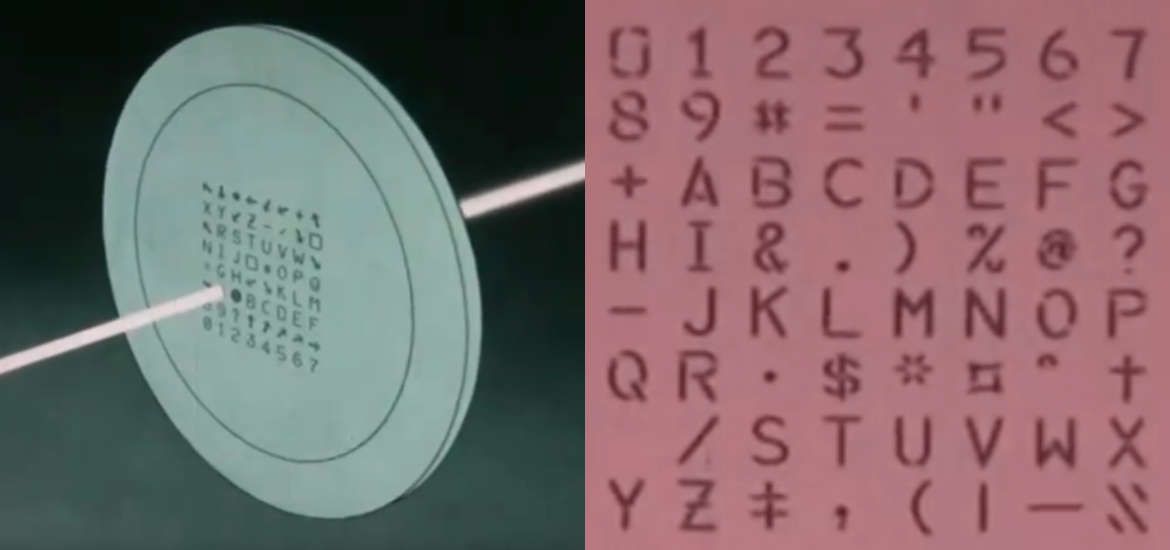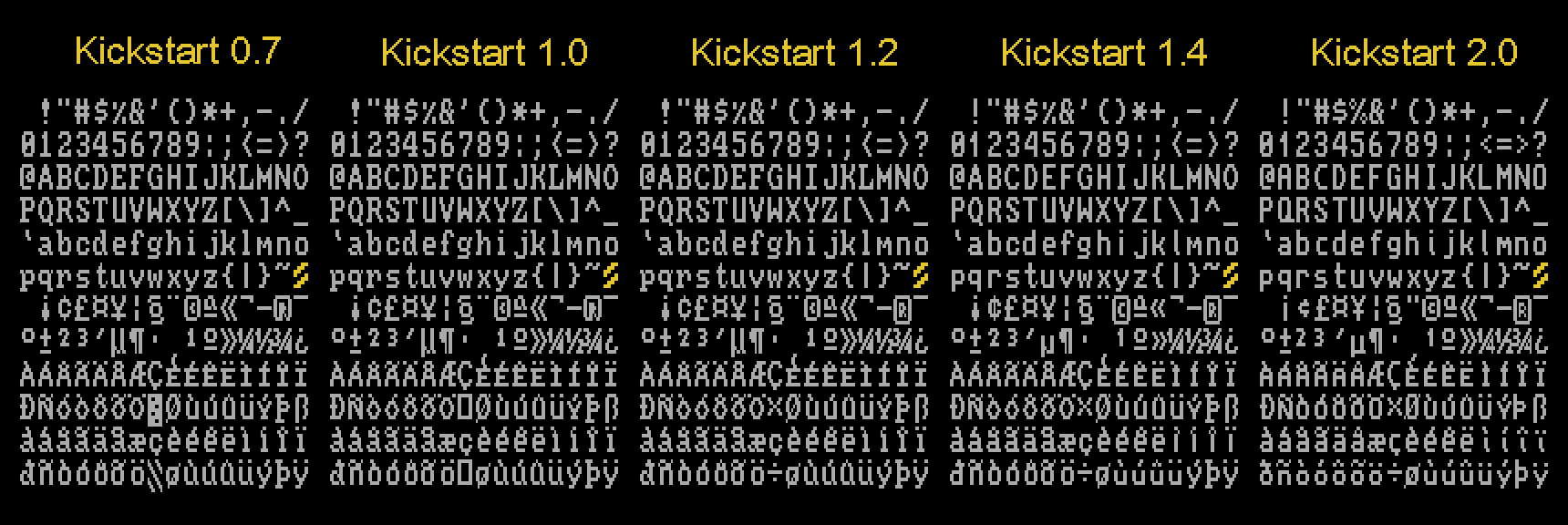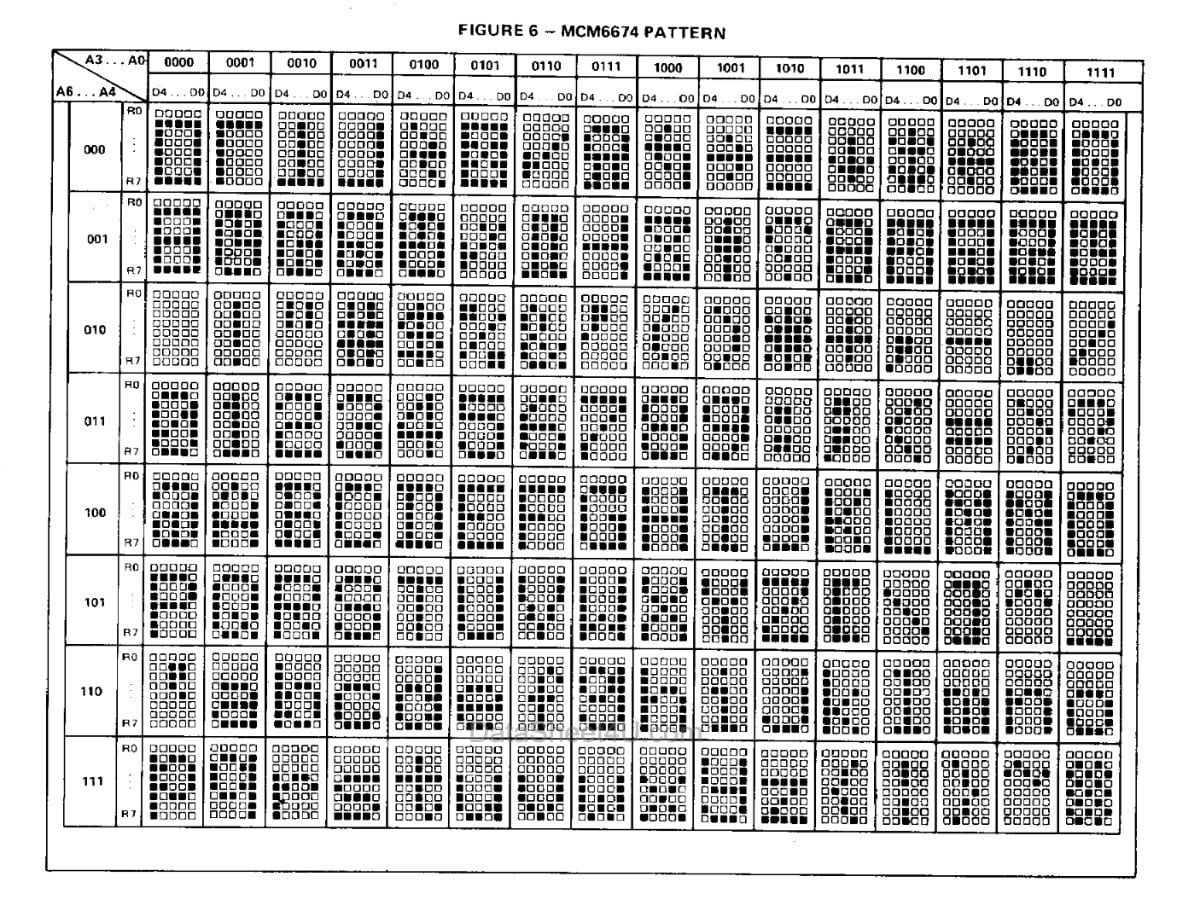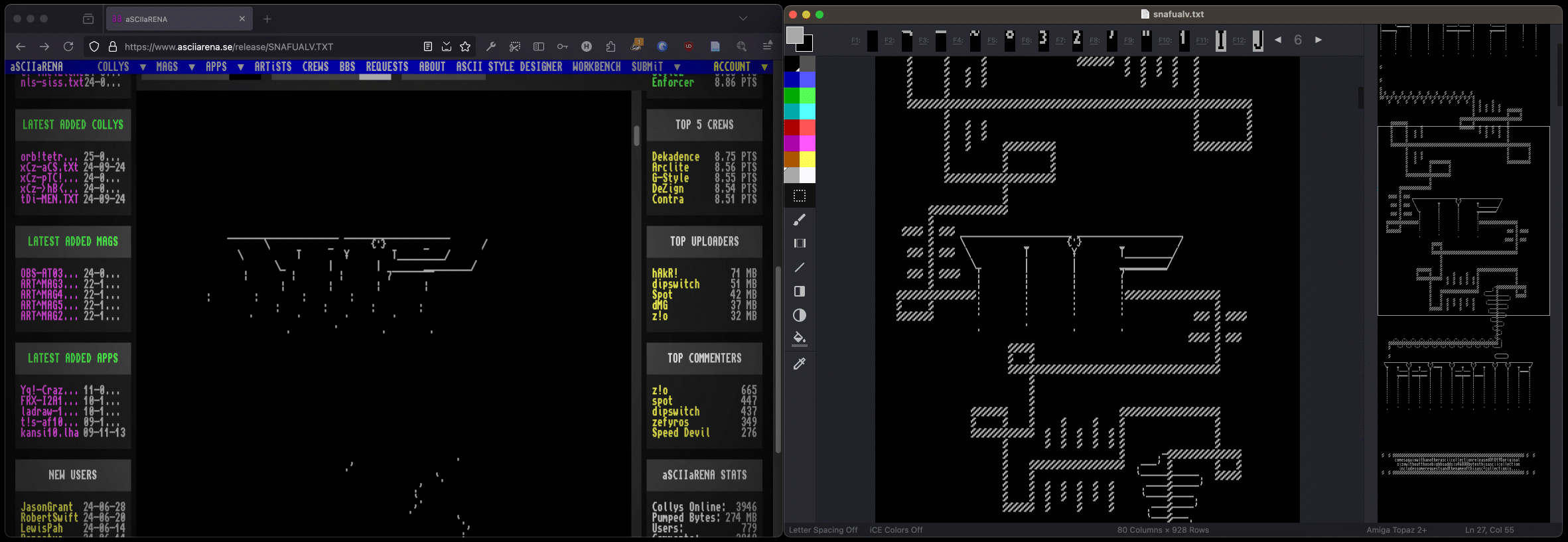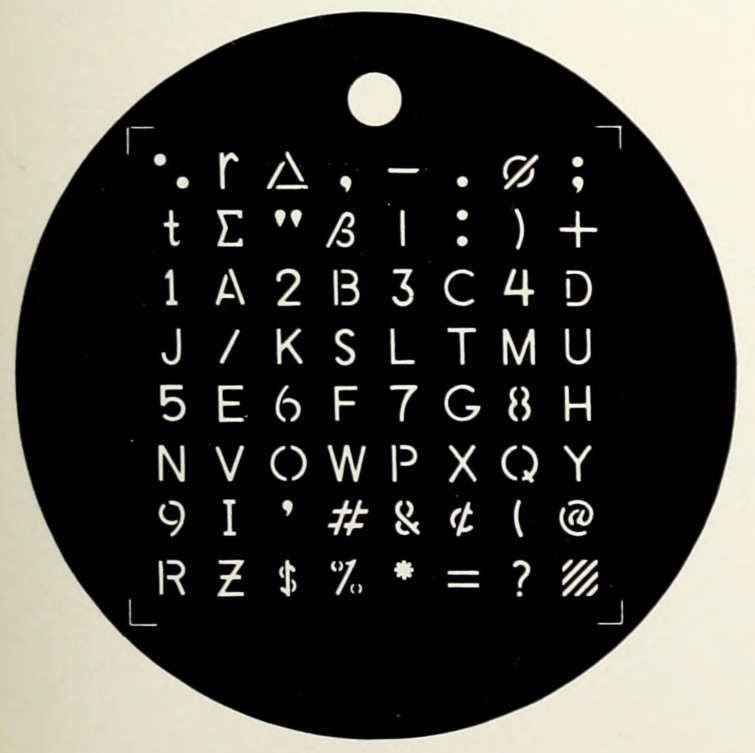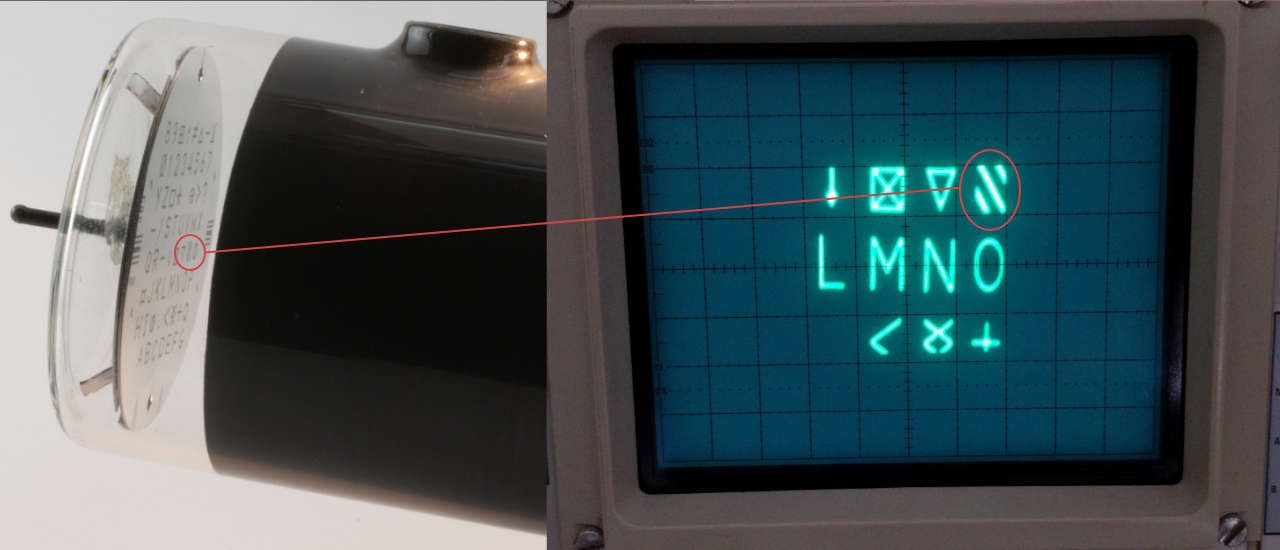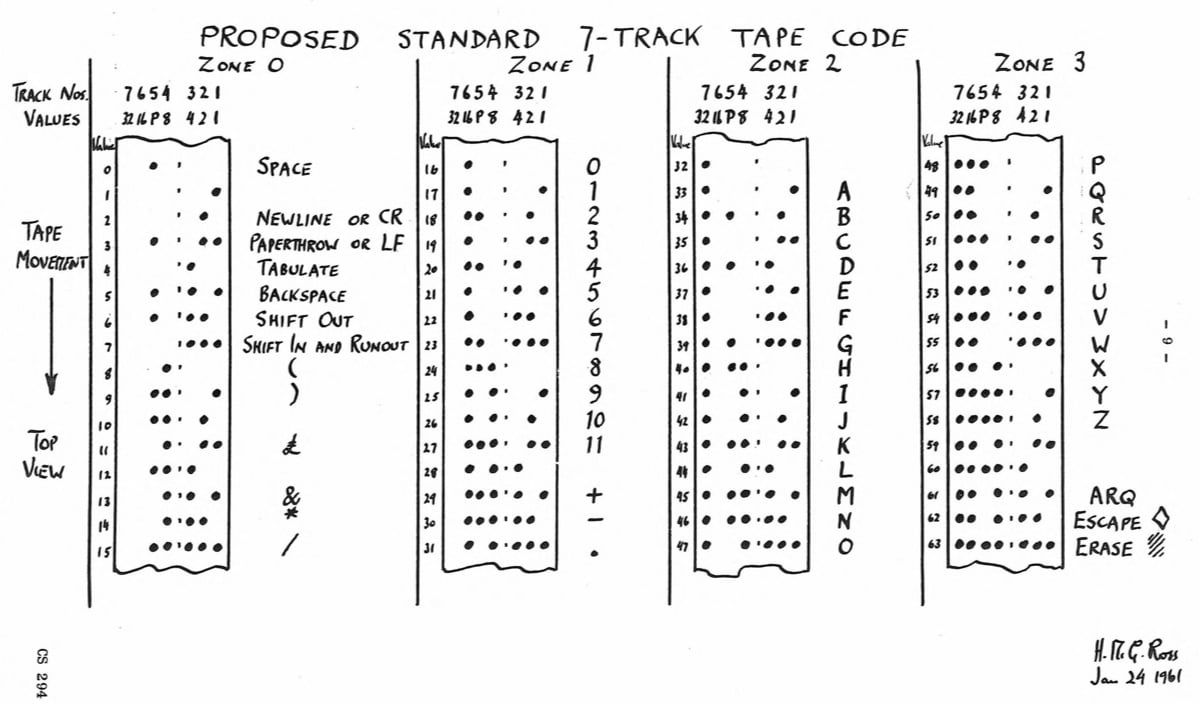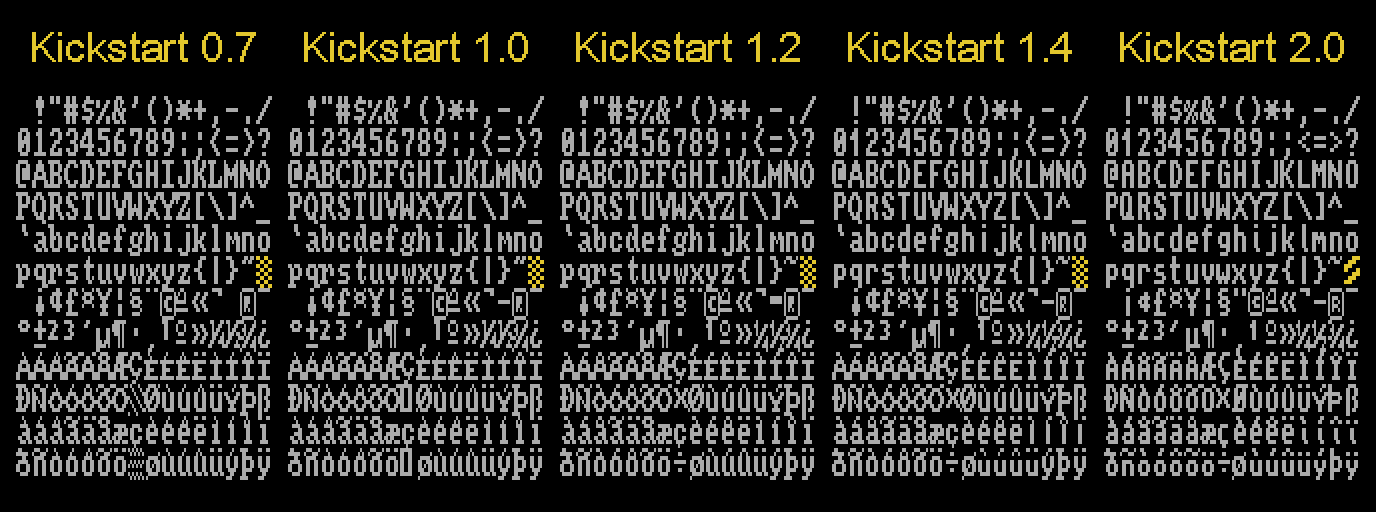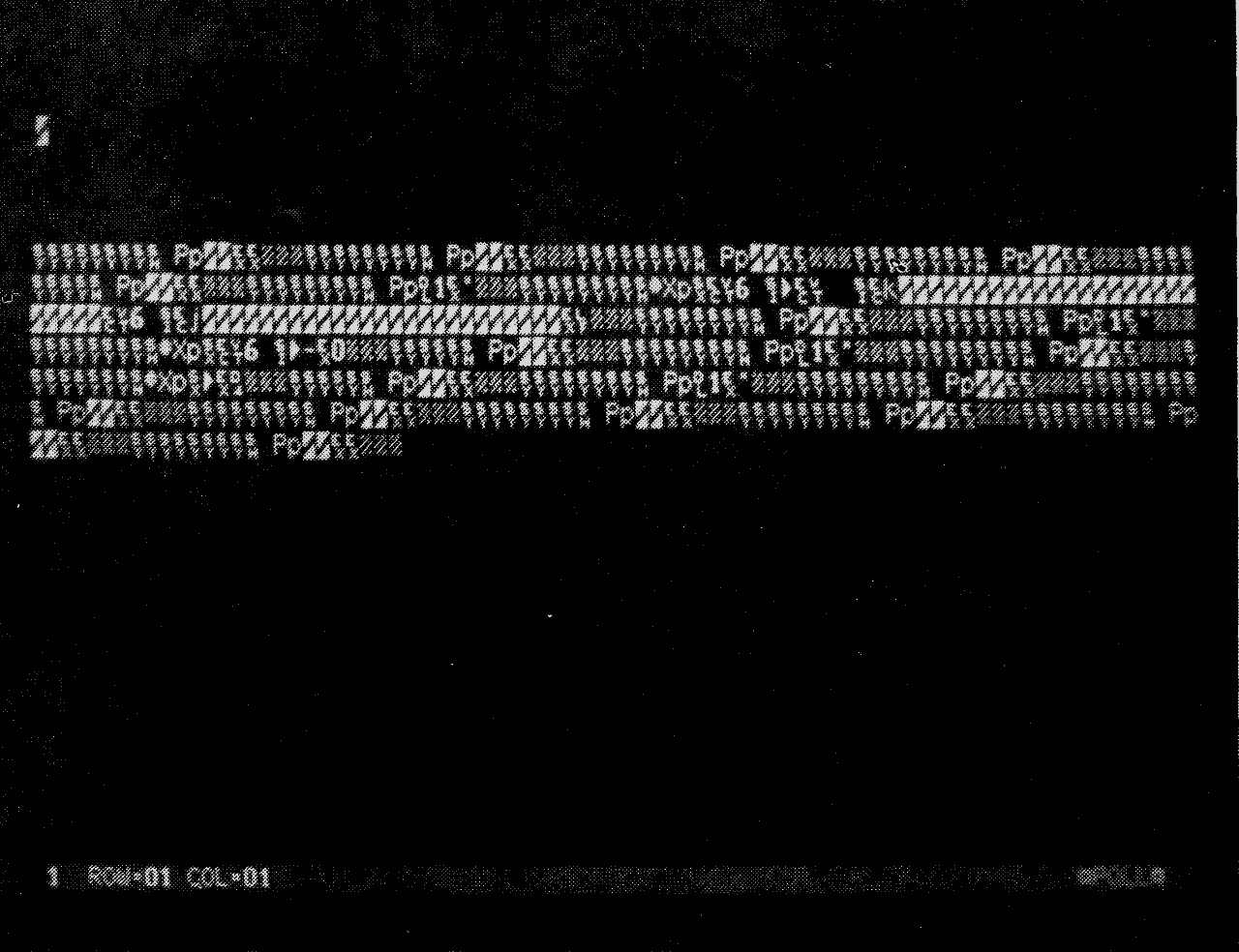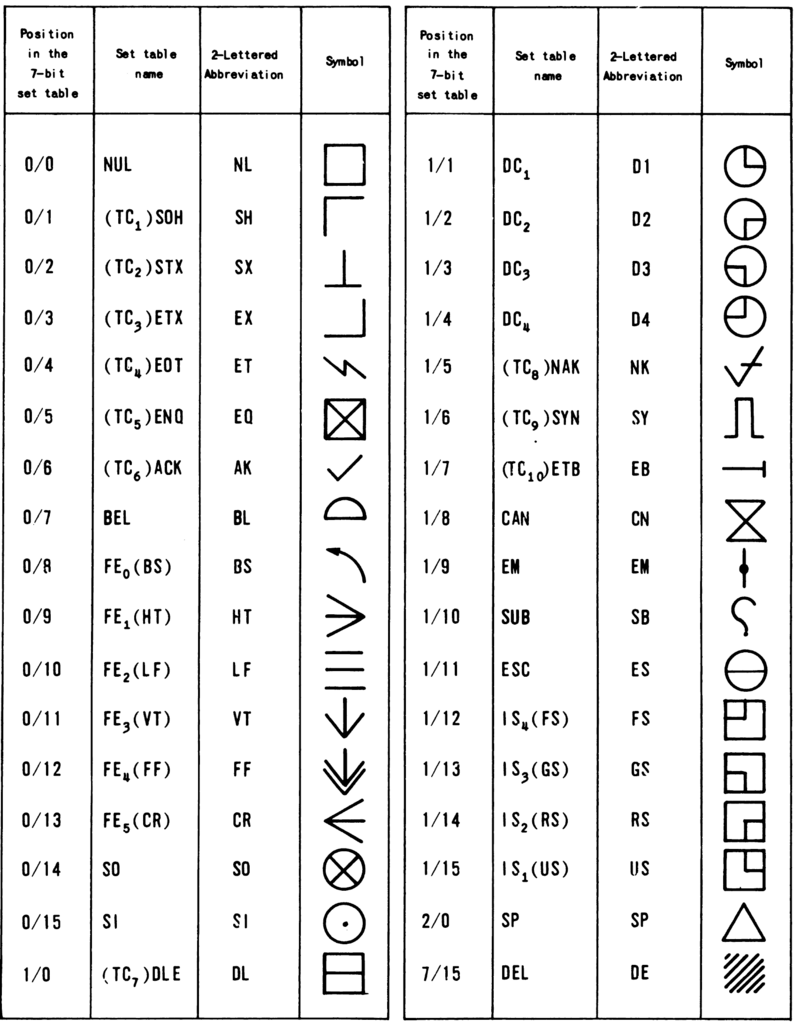
Brief Summary
tl;dr: This article is a detailed (but not exhaustive) micro-history on the character DEL (0x7F) as it appears in Amiga's Topaz font ( ⌂ ), and how it was used in Amiga ASCII art between 1993–2005.
In part 1, "What is DEL", I try to form a comprehensive understanding of how DEL(ETE) originated as a way to obliterate errors on punched tape, and how it found use as a timing control for mechanical printers.
In part 2, "The graphics of DEL", I take a closer look at how normally non-printing characters, like DEL, were given a standardized graphical representation through ECMA-17 in 1968, and how DEL was actually represented in various early bitmap fonts between 1970s–1990s.
Part 3, "DEL in Amiga ASCII art", is about the particular shape and design of Topaz's ⌂. I analyze over 3000 Amiga ASCII artworks made between 1993–2005 to see how DEL was used, and showcase some of them.
PART 1
What is DEL (0x7F)?
Introduction
One day I received an unexpected email from Michael Walden.
He had read my BA thesis on Amiga ASCII art and wanted to point out something curious that I had missed. The character set used in AmigaOS is identical to the ISO/IEC 8859-1 character encoding standard[1], except for one character: the character at code point 0x7F.
This observation might seem trivial, but I was intrigued. This character has always been somewhat of a mystery to me. Let me explain…
Diagonals in Amiga ASCII Art
The default font of Amiga, Topaz, is really good for making ASCII art in "outline" style because many of its characters "touch" the edges of the 8×16 pixels-per-character cell. Slashes placed diagonally form a continuous slanting line, and rows of underscores form straight horizontal lines. Combined in a textmode grid, these characters can be assembled into an endless variety of shapes, forming the basis for the majority of Amiga ASCII art. The seamless connectivity of the glyphs, as a result of their systematic familiarity, is what makes the unique aesthetic of Amiga ASCII art:
Besides the slashes and underscores, there's a total of 256 characters to play with. Every diagonal in every character of Topaz follows the same basic rule: two pixels up, one to either side (e.g < > / \ % X Y Z K ^ 2 4)[2]. All, except for one character: the character at code point 0x7F.
Topaz represents 0x7F as two diagonal lines ( ⌂ )[3], which makes it very distinct compared to all the other characters because of its unusual angle: ⌂ is the only glyph where the diagonals go two pixels up and two pixels to the right. Because 0x7F doesn't follow Topaz's inherent geometric "rules", it doesn't tile well, which makes it tricky to use in Amiga ASCII art. It's like a puzzle piece that belongs to a different set, yet finding uses for it is an interesting challenge (I'll come back to this in part-3).
Is it a coincidence that the same character that deviates from the standards, is also the character that deviates visually from all the other characters? Or is there something more to it?
The Contradiction of a Non-Printable Glyph
As I was taking a closer look at the ISO/IEC 8859-1 standard, I realized that 0x7F is the code point for the control character DELETE (DEL), which is a non-printable character! To quote directly from Wikipedia, the Delete character "is supposed to do nothing"[4], thus its graphical representation is supposed to be empty and undefined.
But... if DEL is supposed to do nothing, and look like nothing, then why does Topaz have a glyph for it? I would assume that if a character has a graphical representation, then it must have some meaning or function, right? But if so: what is it? What reasons did Topaz's designers have that justified diverging from the standards, and give DEL a distinct graphical representation? Why not follow the standards and just leave it empty?